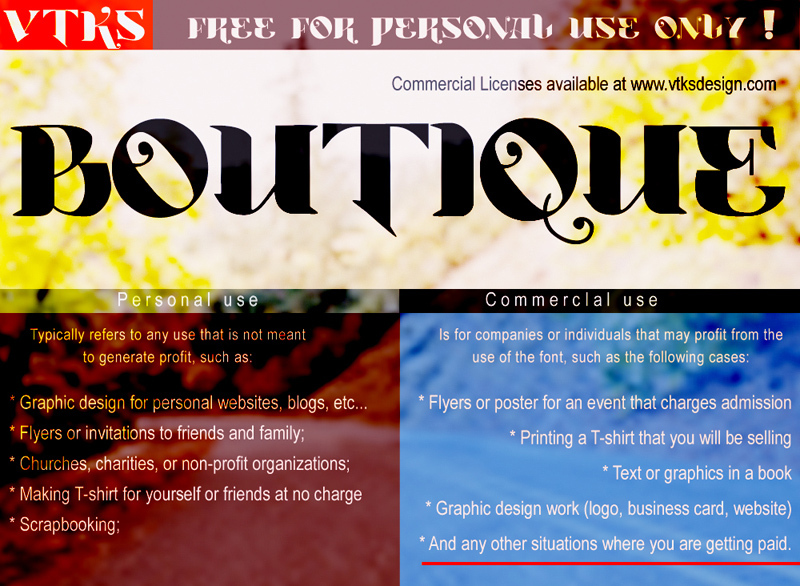
Vtks Boutique by Douglas Vitkauskas is a free decorative Gothic display font with dramatic, fashion-minded letterforms. Broad black shapes snap into hairline curves, and pointed wedges cut through the unusually fluid silhouettes. The details are deliberately extravagant.
A fashion poster is its clearest setting, where the severe contrast and sweeping construction can echo couture photography, theatrical styling, and ornate boutique branding. On album covers, fragrance packaging, and formal event invitations, the recurring curls and teardrop-like flourishes can extend into decorative borders, filigree, or stylized floral artwork, turning the lettering itself into part of the illustration across a larger coordinated graphic system.